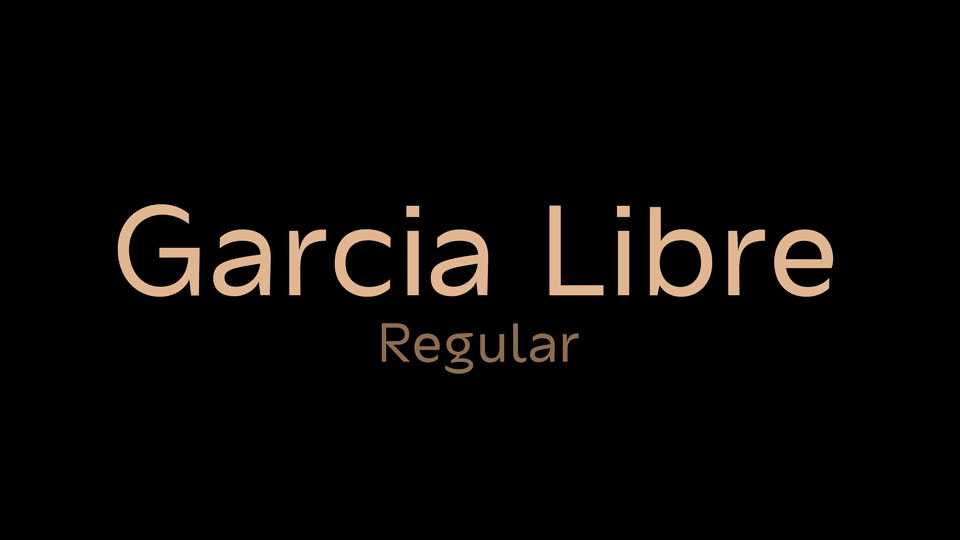
Download Garcia Libre font, a modern sans serif typeface. Garcia Libre works well for texts. It’s suitable for editorial use, web publishing, print templates and other projects.
Designer: Anton Moglia